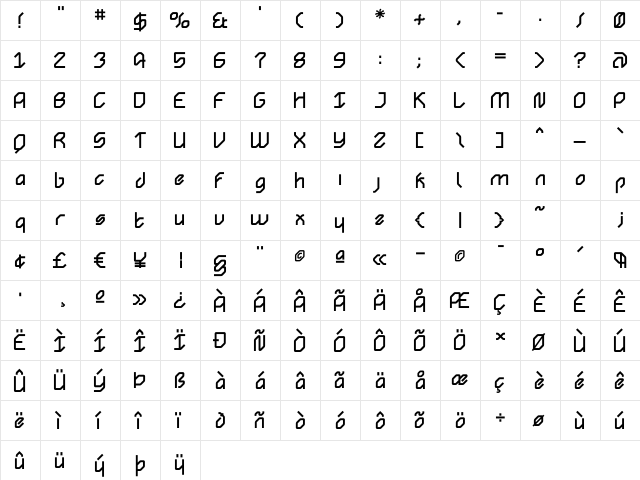
AngolRound Black Regular
Design Context for AngolRound Black Typeface
AngolRound Black uses gentle rounded endings to create a warm, inviting typographic personality — less corporate than geometric sans, more refined than playful display fonts.
Well-suited to UI design, mobile interfaces, and any brand that wants approachability without sacrificing clarity.
Font Pairing: Pairs well with a rounded or humanist sans for body copy, maintaining the friendly tone without relying on AngolRound Black to carry extended reading.
Pro Tip: Use AngolRound Black for UI elements, app interfaces, and anywhere a friendly, approachable tone needs to be maintained without sacrificing clarity.